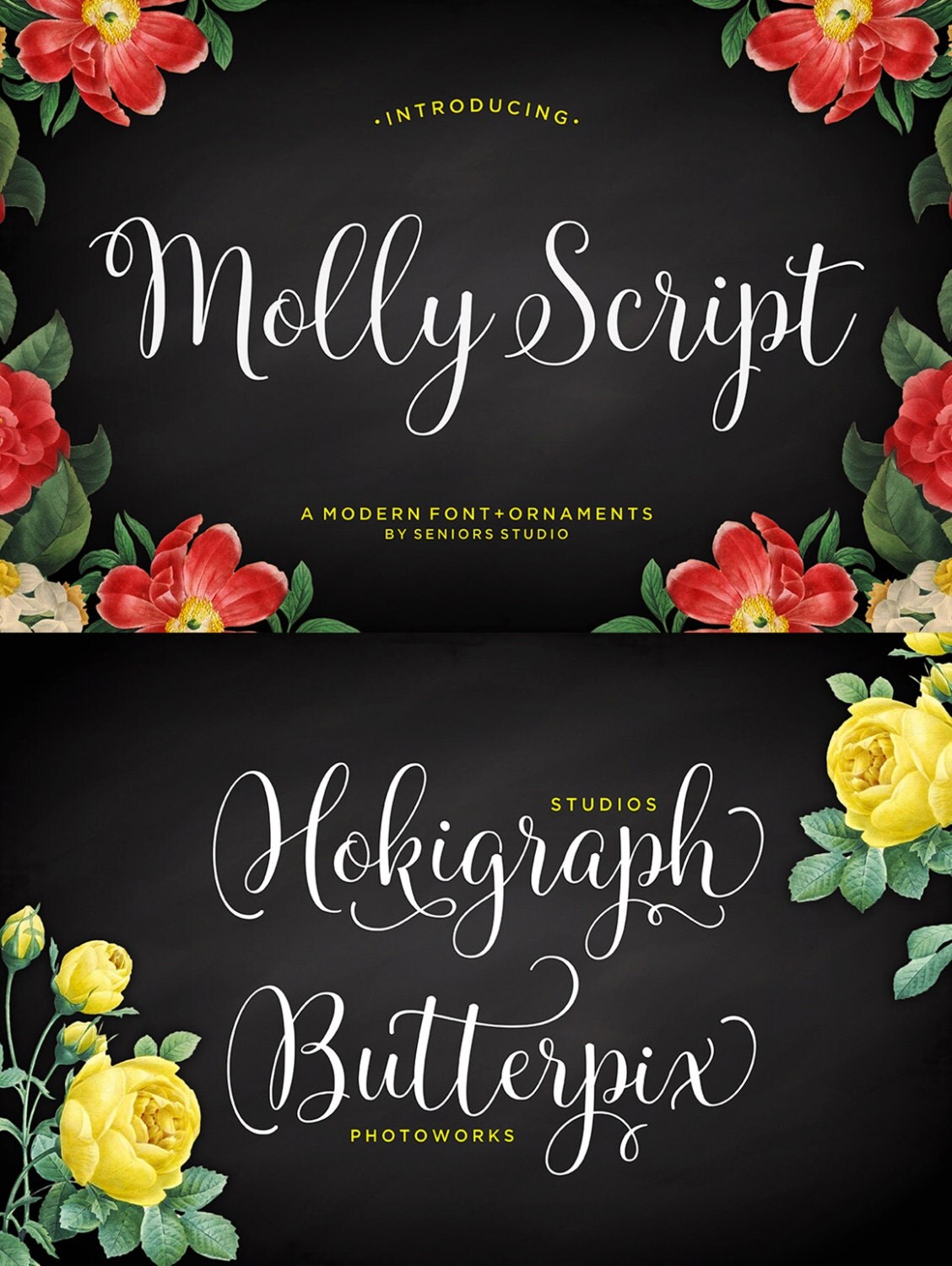
Download Molly Script Font . In script > various 4,706 downloads (2 yesterday) demo. That comes with lovely alternates.
Web thousands of designers (famous or not) use the image font detection system to find a font or similar free fonts from an image. Web download molly script (595665) instantly now! Web molly script is modern handwritten calligraphy typeface with dancing up and down the baseline.
Web molly script is modern handwritten calligraphy typeface with dancing up and down the baseline. Web molly font | dafont.com english français español deutsch italiano português. Web molly script is modern handwritten calligraphy typeface with dancing up and down the baseline. This font is for personal use.
Download Molly Script Font - Moreover, you can embed it to your website. Web molly script is modern handwritten calligraphy typeface with dancing up and down the baseline. Web molly script is modern handwritten calligraphy typeface with dancing up and down the baseline. In script > various 4,706 downloads (2 yesterday) demo. Trusted by millions + easy to use font files + full support.
Download Molly Script Font - Web download new molly script font · free for personal use · thankyou for downloading. In script > various 4,706 downloads (2 yesterday) demo. Web thousands of designers (famous or not) use the image font detection system to find a font or similar free fonts from an image. Web molly script is modern handwritten calligraphy typeface with dancing up and.
Download Molly Script Font - Web download new molly script font · free for personal use · thankyou for downloading. Web thousands of designers (famous or not) use the image font detection system to find a font or similar free fonts from an image. This font is for personal use. Web download molly script (595665) instantly now! Web molly script is modern handwritten calligraphy typeface.
Download Molly Script Font - In script > various 4,706 downloads (2 yesterday) demo. This font is for personal use. Web molly font | dafont.com english français español deutsch italiano português. Web molly script is modern handwritten calligraphy typeface with dancing up and down the baseline. That comes with lovely alternates.
Download Molly Script Font - Web molly script is modern handwritten calligraphy typeface with dancing up and down the baseline. Trusted by millions + easy to use font files + full support. Moreover, you can embed it to your website. Web download new molly script font · free for personal use · thankyou for downloading. Web download molly script (595665) instantly now!
Download Molly Script Font - In script > various 4,706 downloads (2 yesterday) demo. Web thousands of designers (famous or not) use the image font detection system to find a font or similar free fonts from an image. Moreover, you can embed it to your website. That comes with lovely alternates. Web molly script is modern handwritten calligraphy typeface with dancing up and down the.
Download Molly Script Font - Web download new molly script font · free for personal use · thankyou for downloading. Web download molly script (595665) instantly now! Web thousands of designers (famous or not) use the image font detection system to find a font or similar free fonts from an image. That comes with lovely alternates. This font is for personal use.
Download Molly Script Font - In script > various 4,706 downloads (2 yesterday) demo. Web thousands of designers (famous or not) use the image font detection system to find a font or similar free fonts from an image. Web molly script is modern handwritten calligraphy typeface with dancing up and down the baseline. Web download molly script (595665) instantly now! This font is for personal.
Download Molly Script Font - This font is for personal use. Trusted by millions + easy to use font files + full support. Web molly script is modern handwritten calligraphy typeface with dancing up and down the baseline. Web download new molly script font · free for personal use · thankyou for downloading. Web molly script is modern handwritten calligraphy typeface with dancing up and.
Download Molly Script Font - In script > various 4,706 downloads (2 yesterday) demo. This font is for personal use. Web molly script is modern handwritten calligraphy typeface with dancing up and down the baseline. That comes with lovely alternates. Web molly script is modern handwritten calligraphy typeface with dancing up and down the baseline.
Download Molly Script Font - Web download new molly script font · free for personal use · thankyou for downloading. Web molly script is modern handwritten calligraphy typeface with dancing up and down the baseline. That comes with lovely alternates. Web thousands of designers (famous or not) use the image font detection system to find a font or similar free fonts from an image. Web.